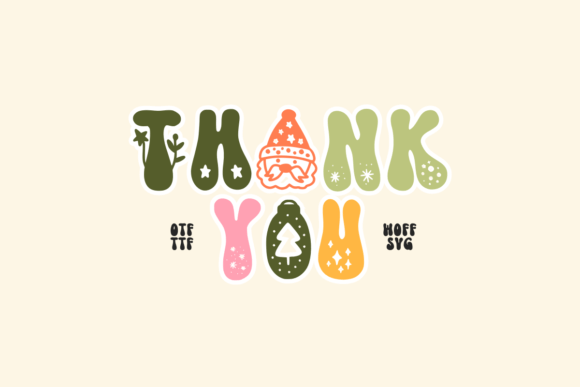
Season Holidays Font
Season Holidays is a cool retro groovy font, this font is perfect for Christmas and New Year’s Eve. Great for quotes, t-shirts, tote bags, greeting cards, mugs and any design that needs a fun look.